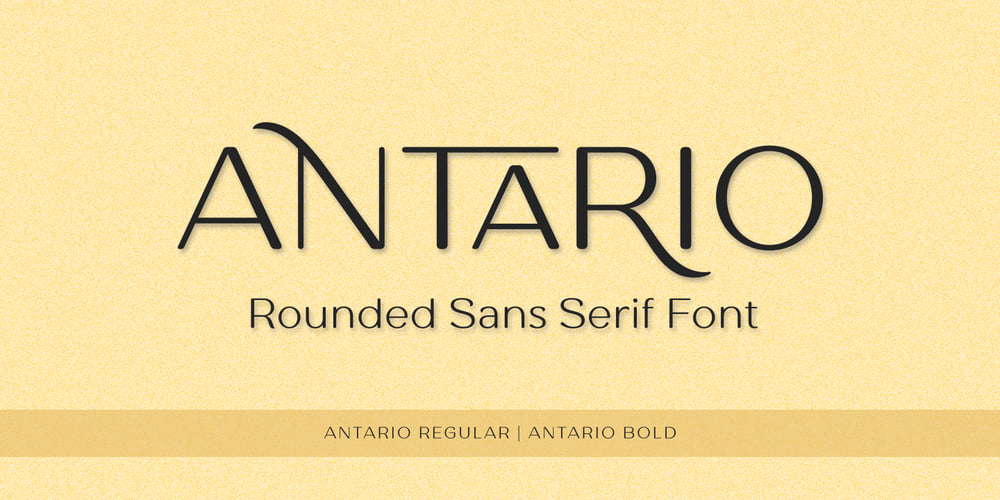
Antario Font Family was designed by Arwan Sutanto and published by Locomotype. Antario contains 4 styles and family package options. Antario is a high-contrast sans-serif font with a classic rounded style so it looks elegant and attractive. Available in two styles, Regular and Bold including various OpenType features such as disrectional ligatures, swashes, stylistic sets, fraction etc.Antario font also supports multilingual including Cyrillic. With more than 600 glyphs, you can be more creative in creating various types of typography in graphic design.